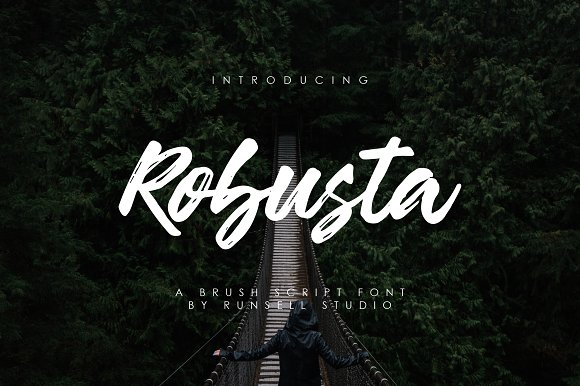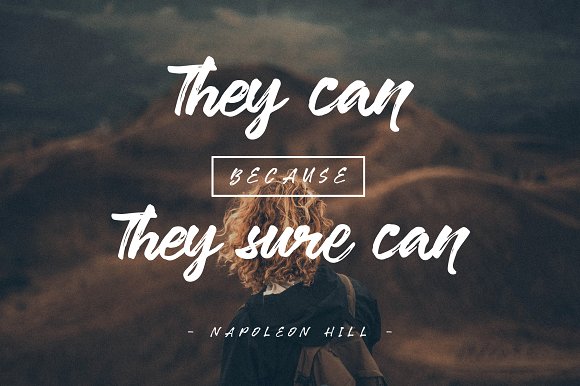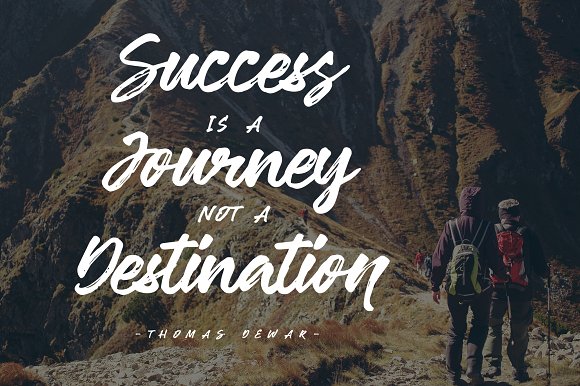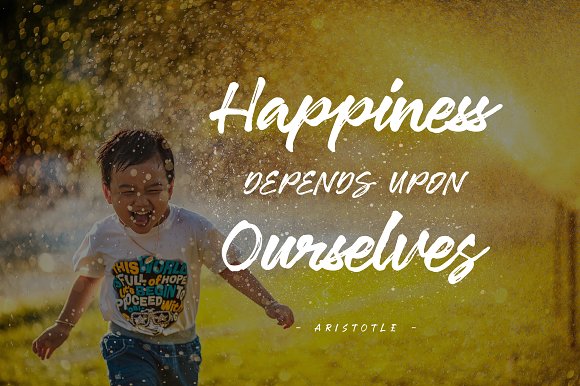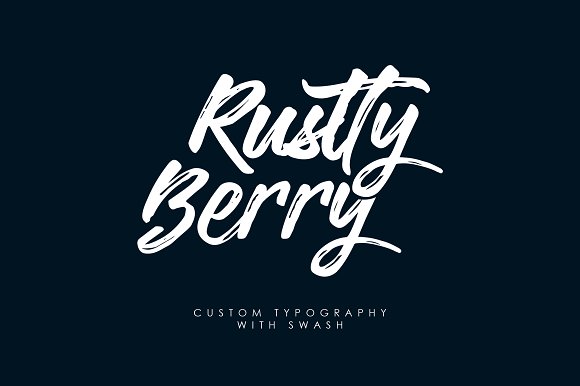
Robusta + Swash Font
Robusta which has a brush script style. With quick dry strokes and a signature style, this font is best used for your design project that has the concept of fun, brave and sporty. Robusta can also be applied for lettering, logotype, branding, printing template, cover album and etc.